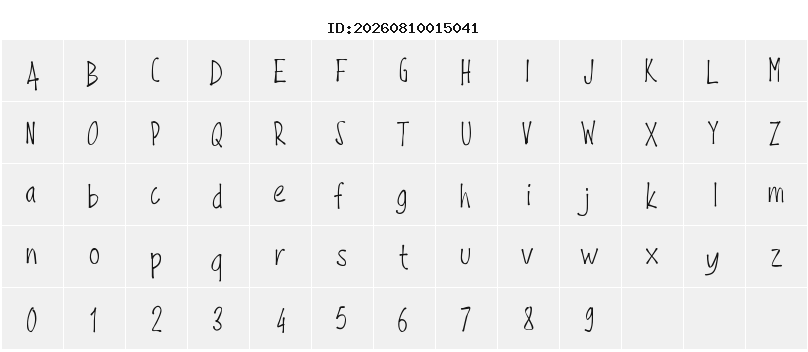
About PWFine.ttf
PWFine.ttf is a modern, elegant sans-serif font designed for ultimate readability and visual harmony. Perfect for branding, headlines, web design, and print materials.